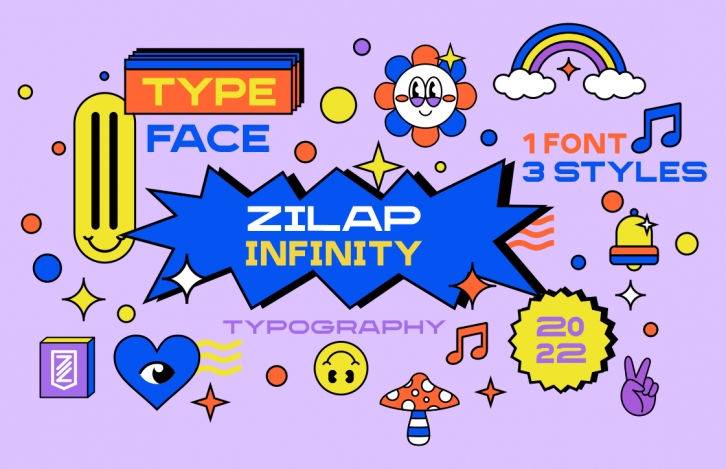
This is not just a font, it is a set of styles with which you can take your designs to another level.
Explore, enjoy and create with this project the most daring pieces for your brand.
Designed under geometric and contemporary parameters to adapt to all kinds of uses.
Its design concepts are: urban, futuristic, video games and music.
So is the new Zilap Infinifity font, created today and designed for tomorrow.